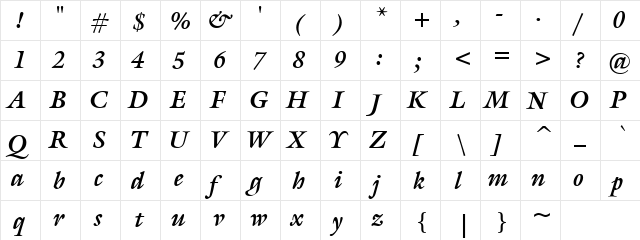
Super 7 Regular
Design Context for Super 7 Typeface
Super 7 is a composed and adaptable typeface that performs quietly and consistently across a wide range of design contexts.